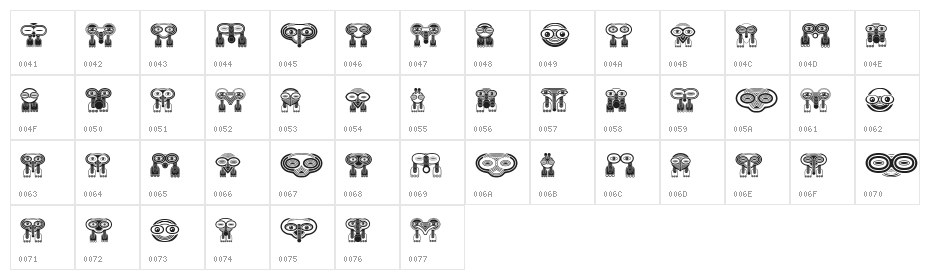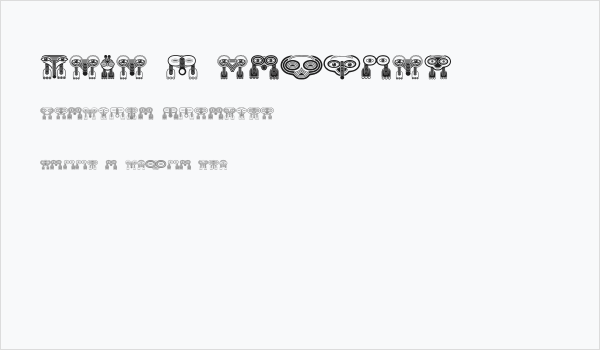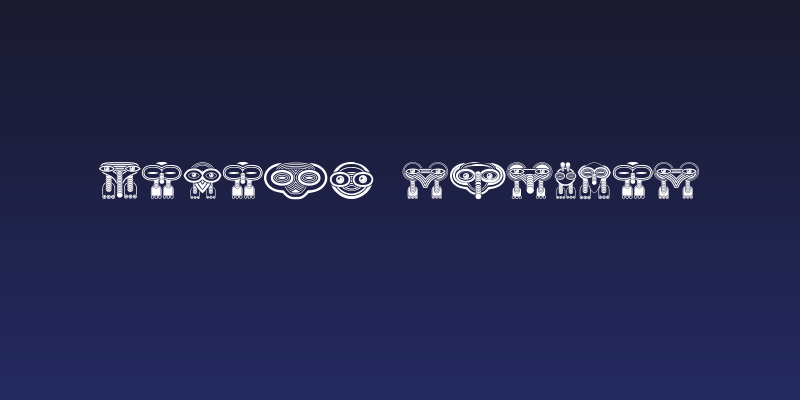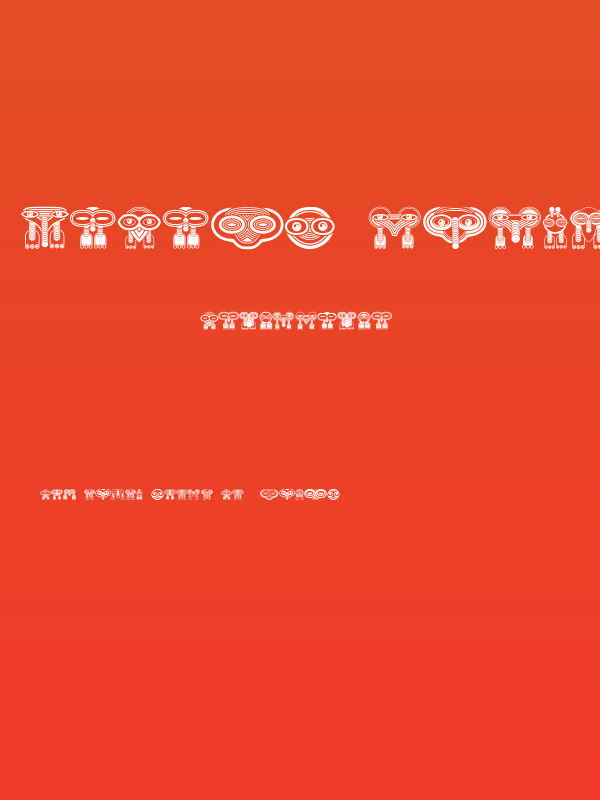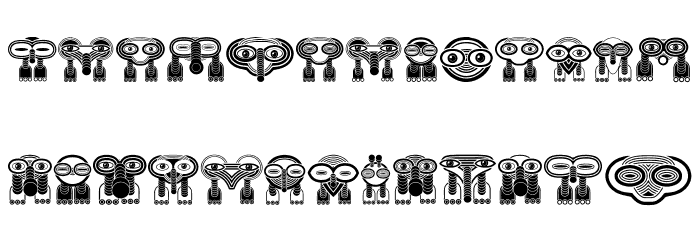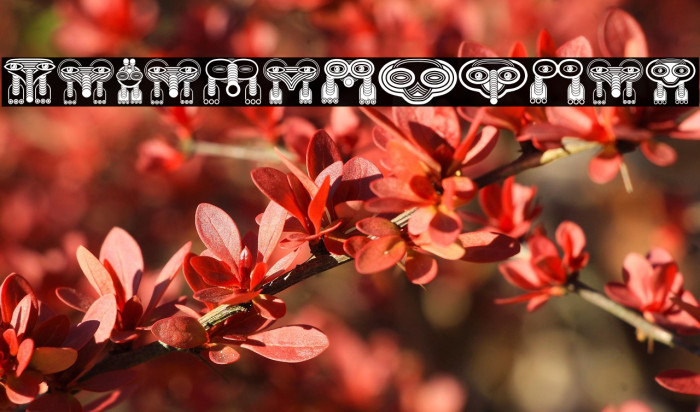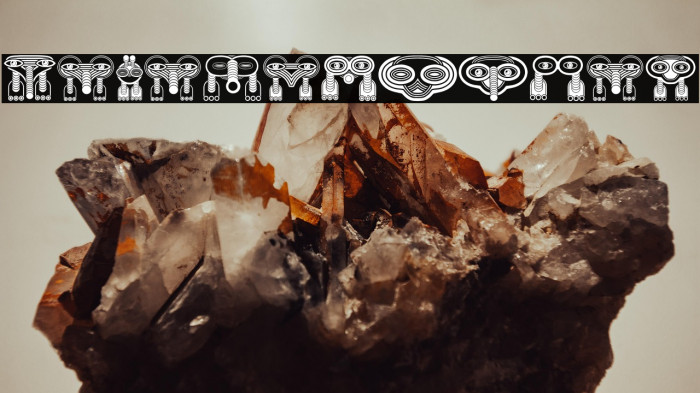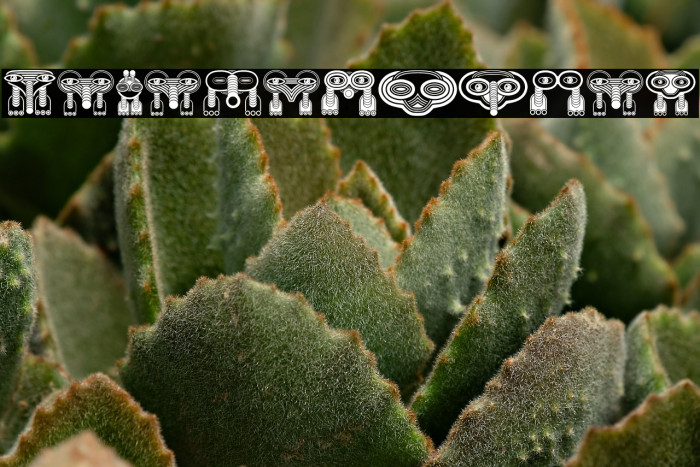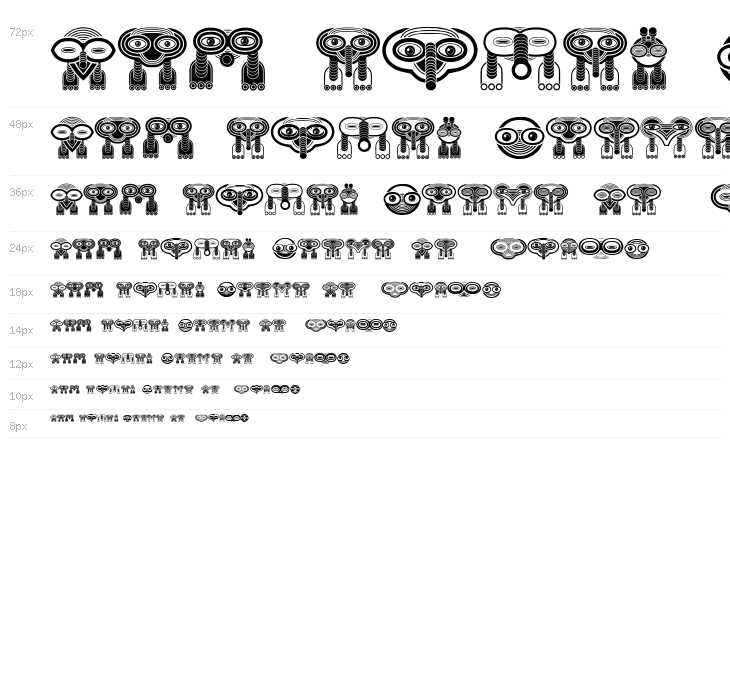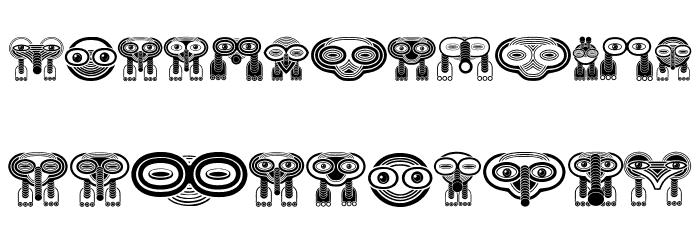
Wakazi Regular Font
This font is a highly decorative and whimsical design, featuring characters that resemble playful, abstract creatures or masks. Each character is intricately detailed with bold lines and circular patterns, giving it a unique and artistic appearance. The font is not intended for traditional text but rather for creative projects where a distinctive and eye-catching style is desired. The characters are uniform in height but vary in width, contributing to a dynamic and engaging visual rhythm. This font is perfect for projects that require a touch of creativity and imagination, such as children's book illustrations, artistic posters, or unique branding materials.
| Use Case | Logos, Artistic projects |
| Proposed Projects | Ideal for children's books, artistic posters, and unique branding. |